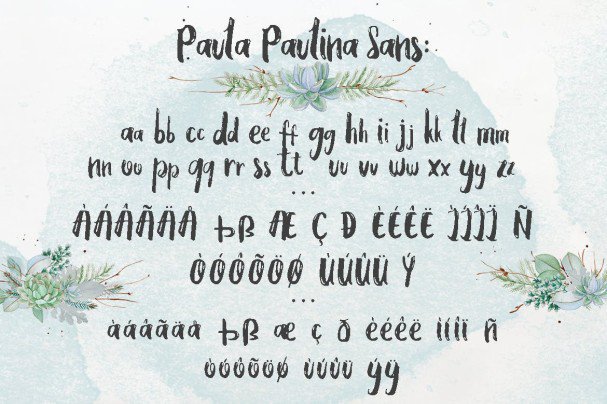
Paula Paulina Font
Paula Paulina Font shines among the fonts with its beauty. This font is also featured in Google Fonts. It is being released through Range Foundry for the first time.
This has taken the basics of ocean font. This font is used inside the photodetection approach. Consequently, it obtained too much reputation every day with its extraordinary elements.
Style of Paula Paulina Font Free